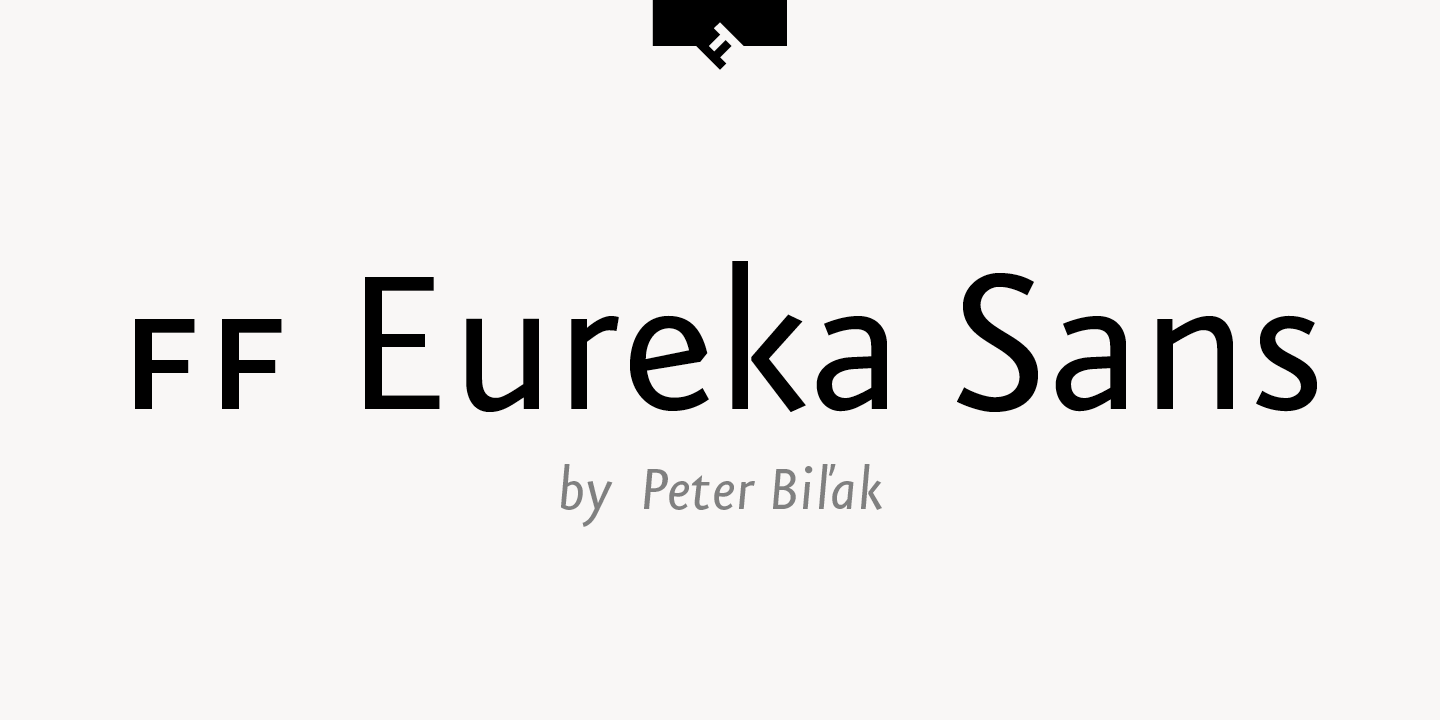
The FF Eureka Sans Font is incredibly versatile, making it an excellent choice for a wide array of design projects that demand a contemporary, highly legible, and universally appealing aesthetic. Imagine it bringing a crisp, professional edge to modern corporate branding and logos, ensuring clarity in complex data visualizations, or providing a sophisticated, understated feel to editorial layouts for tech and design publications. It's also fantastic for creating easy-to-read web content, designing intuitive user interfaces, and crafting presentations that prioritize information delivery with a clean, approachable style. Its inherent clarity and balanced proportions make it perfect for any project striving to communicate innovation, precision, and an uncluttered visual message.
What makes FF Eureka Sans Font so exciting is its unique ability to combine strong geometric foundations with a subtle humanist warmth, making it both functional and inviting. It often features open counter-forms, a generous x-height, and consistent stroke widths that ensure individual characters are distinct and easy to decipher across various media. This font doesn't just display text; it communicates with purpose, making your message feel authoritative, trustworthy, and effortlessly modern. Its balance of robust presence and remarkable clarity ensures that your designs are not only visually effective but also easily understood. It's a typeface that brings an atmosphere of contemporary elegance and functional beauty to your typography, guaranteeing your projects leave a polished and memorable impression.
The FF Eureka Sans Font family typically includes a comprehensive range of weights and stylistic alternatives to provide extensive creative flexibility. While specific options can differ, you can generally expect to find alternatives like Regular, Italic, Bold, and potentially a Light, Medium, or Condensed version, allowing for diverse visual impact and hierarchy. These different weights and stylistic sets allow you to create dynamic visual structures and add nuanced artistic flair to your typography, ensuring a cohesive and thoughtfully designed outcome. This comprehensive family support ensures that whether you need a strong, commanding headline or a subtle, refined body text, FF Eureka Sans Font Free Download offers the perfect elements to bring your modern vision to life.